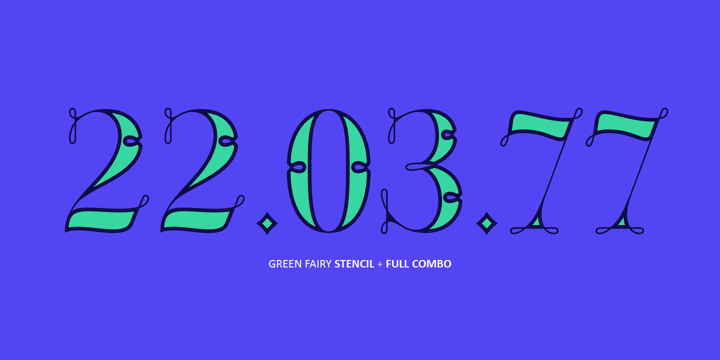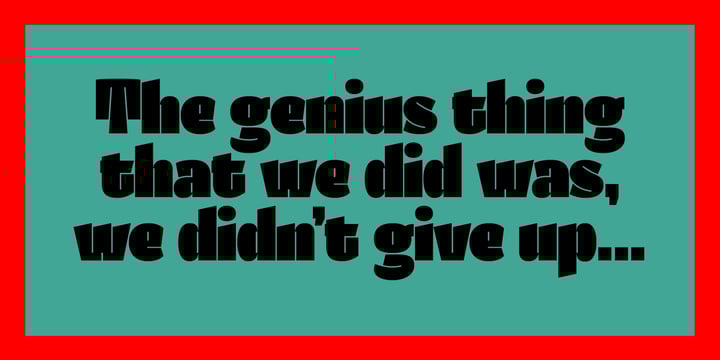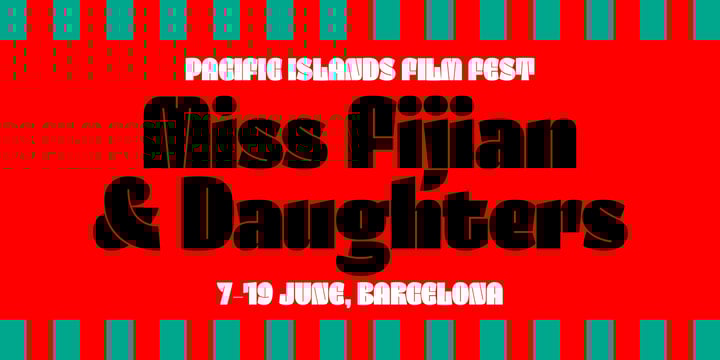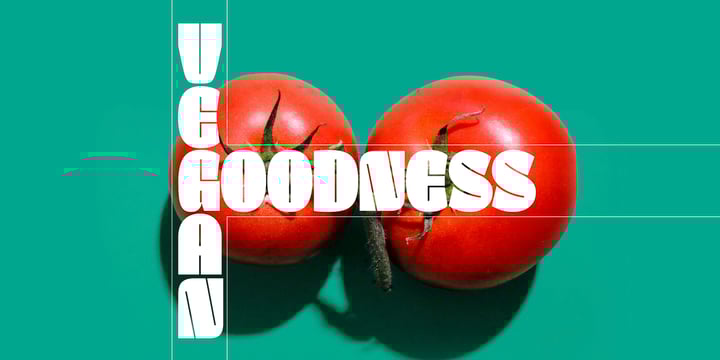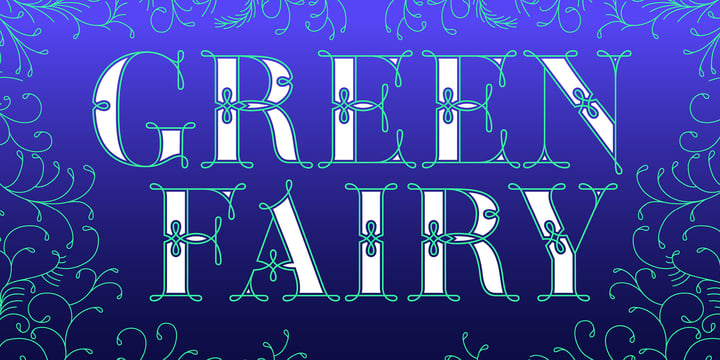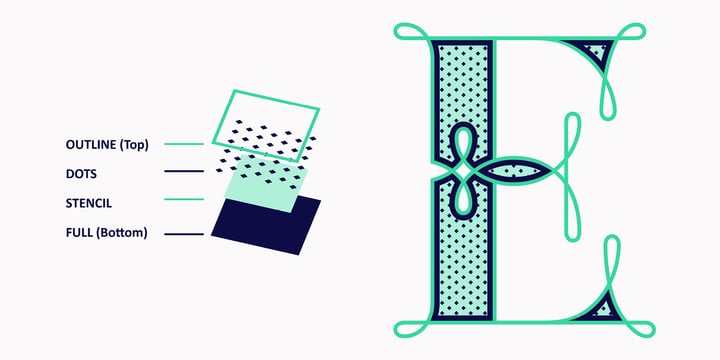
Maria Montes
Maria Montes is a freelance designer and educator passionate about illustration and letterforms.
Her practice is set by the principals of constant learning, sharing and educating about the creative process.
The Melbourne-based designer creates intricate, nostalgic and downright fun lettering and illustrations out of her studio in Fitzroy, where she also runs workshops teaching calligraphy.
Trained as a graphic designer, Maria Montes studied in Barcelona in 1996, where learning calligraphy was compulsory. After spending over a decade working in the field, she decided to re-explore letterforms, resulting in a Postgraduate Course in Advanced Typography, followed by a year-long stint and further study at Type@Cooper in New York City. Her journey ultimately ended in Australia, where she's been living, working and loving over the last 12 years.
Working out of one of Melbourne's most vibrant, creative areas, Maria finds inspiration in the community around her, and strength in the reciprocal support of other women. "I am surrounded by students and creatives who respect and support my practice. Listening to more female voices in the industry means a lot to me; they encourage my work and help me to build confidence."